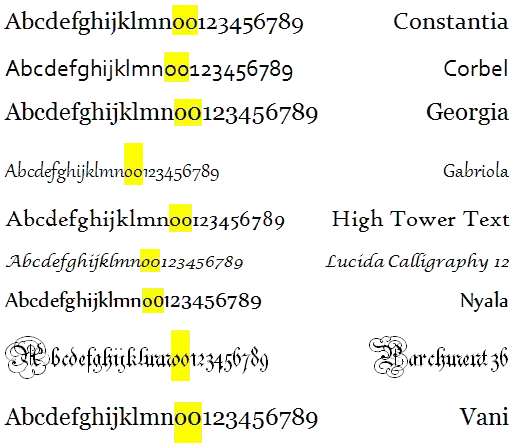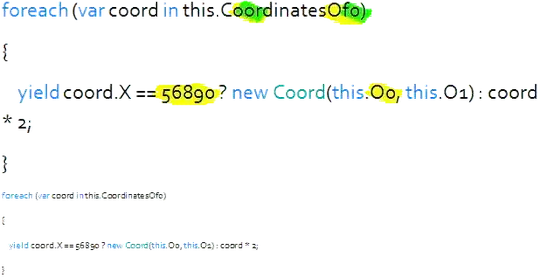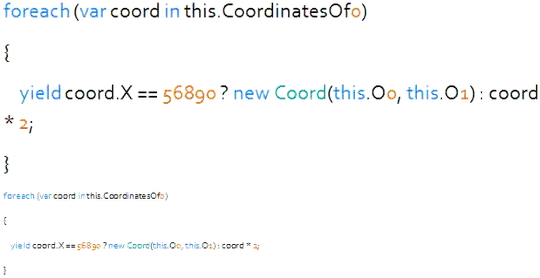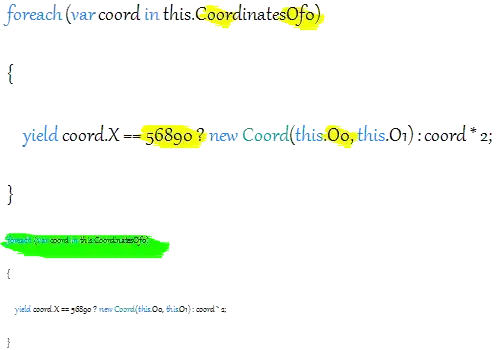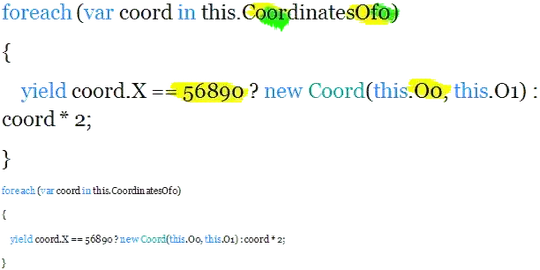
I find that oldstyle (or text) figures are much easier to read in any context outside of simple assignment. Are there any low-ambiguity fonts, monospaced or proportional, that have text figures and other programming-friendly features, such as marked zeroes; aligned braces, operations, and other symbols; and bold and italic forms with identical width to regular?
Note. Old-style figures are numerals which are drawn with variable ascent and descent. Typically, for example, a "0" will be slightly larger than a lowercase "o"; the "6" and "9" will have have circles that are sized and placed similar to a "0", with flags extending up and down from that.
In general, if one is trying to examine numbers as numbers (e.g. parse "8675309" as "eight six seven five three oh ni-y-ine"), the "lining" forms with unified ascent and descent are easier to read. On the other hand, multi-digit numbers written with old-style numerals have different shapes. If one is comparing columns of figures, a number like "1265" will look very different from "1285", since the former will have a flag on the "6" that sticks up far above any feature of the latter.
Tabular figures are figures spaced with equal width; they may be lining or oldstyle. So all monospaced fonts have tabular figures, but most proportional fonts do not.
A nice article on oldstyle/lining/tabular/proportional figure styles: http://fontfeed.com/archives/figuring-it-out-osf-lf-and-tf-explained/ The comment thread mentions that tabular and oldstyle are an unusual combination, so you may be forced to use a proportional font, which has additional consequences. – Stuart Marks Aug 18 '12 at 16:35
• what are "oldstyle figures" and what makes these specifically programming friendly? What could be "programming-friendly features" in fonts at all? besides obvious fixed width I can not imagine anything programming-specific at all – gnat Aug 18 '12 at 18:03
@gnat: Old-style figures are numerals which are drawn with variable ascent and descent. Typically, for example, a "0" will be slightly larger than a lowercase "o"; the "6" and "9" will have have circles that are sized and placed similar to a "0", with flags extending up and down from that. – supercat Aug 18 '12 at 18:58
• @gnat: In general, if one is trying to examine numbers as strings of digits (e.g. parse "8675309" as "eight six seven five three oh ni-y-ine"), the "tabular" forms with unified ascent and descent are easier to read. On the other hand, multi-digit numbers written with old-style numerals have much more variation in their overall shapes. If one is comparing columns of figures, a number like "1265" will look very different from "1285", since the former will have a flag on the "6" that sticks up far above any feature of the latter. – supercat Aug 18 '12 at 19:02
• @supercat I see, thanks. Comparing columns of figures seems more important in other professions, like accounting - I don't see much value in this for programmer. I do infrequently have to deal with stuff like that when reading application logs, but it usually doesn't last long due to logging improvements I make after such err incidents. Log should read like a piece of prose not like boring excel sheet – gnat Aug 18 '12 at 19:08
@gnat: I suspect that old-style numerals are probably better than tabular-style when comparing for equality, but the tabular style are better when performing arithmetic or when comparing magnitude. The old-style numbers are sometimes called "lowercase numbers", and there's a bit of an analogy both in terms of shape and usage. If one wants to read a sequence of letters sequentially "as letters", it's generally easier to read uppercase letters (which have consistent ascent and descent) that way than do so with lowercase. Of course, lowercase letters are generally easier to read "as words". – supercat Aug 19 '12 at 16:43
• Consolas includes old style figures as an OpenType alternative, and I made myself a custom version by copying those glyphs over the default figures. If you give me some way to contact you (e.g., a throwaway email service, if you don't want to share real contact info), I can send you the files. – typo May 15 '17 at 21:44
In most IDEs, you may choose whatever font you like. If you find an oldstyle font more readable, pick it.
Note that all (nearly all?) oldstyle fonts are proportional, while proportional fonts have some issues when using them in programming context.
Aside that, let's test and compare some oldstyle fonts to the fonts usually used in IDEs. I have only Windows environment for tests; if anyone could add illustrations for fonts used in MacOS or Linux, feel free to edit the answer.
There are multiple oldstyle fonts installed by default in Windows/Microsoft Office:
In order to avoid duplicates and shorten the answer, I take only three oldstyle fonts: Georgia, Corbel and Gabriola and three classical fonts: Courier New, Lucida Console and Consolas.
Courier New
enter image description here
Simple to use, but hard to make the difference between the digit "0" and the capital "O". The text is too light, which would make it difficult to read on a black background with light text.
But with the better fonts (eg consolas) in VS2010 and now that truetype finally works properly I don't use them as much.
Interesting, SO (or Opera) puts a slash through 0 in the edit box but not int he post! – Martin Beckett Aug 18 '12 at 16:04
• textarea uses Consolas in Windows Vista and later, i.e. the font which has slashed zero character. Once posted, the font used for questions or answers is Tahoma which doesn't have slashed zero (or Consolas for code blocks). – Arseni Mourzenko Aug 19 '12 at 08:45